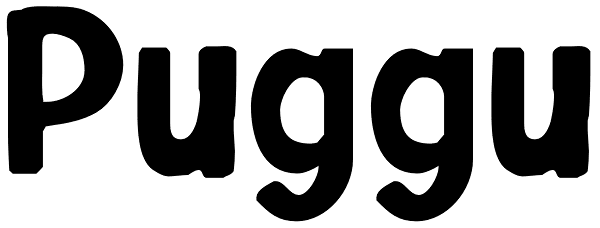
Puggu
Puggu is ideal for headlines or posters where slightly unusual or unrefined type is required, though paragraphs of text are quite readable. The font includes 57 ligatures of fairly common letter combinations (such as at, ee, ss, tt, Ar, RD,) with...